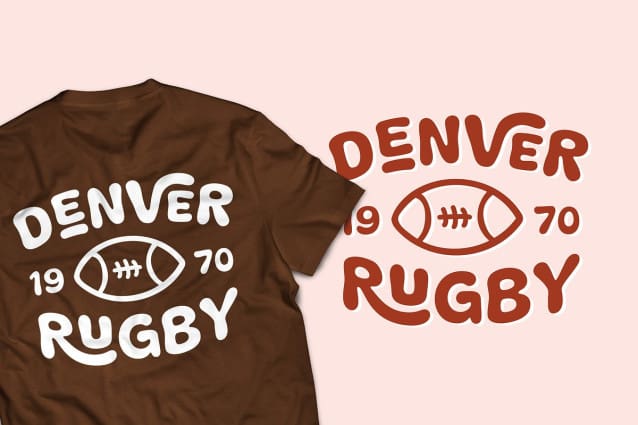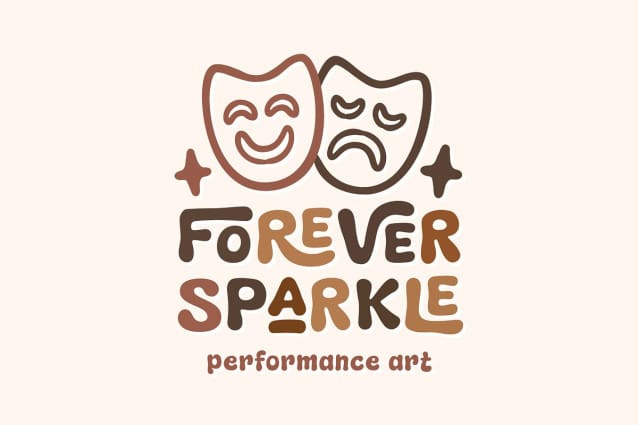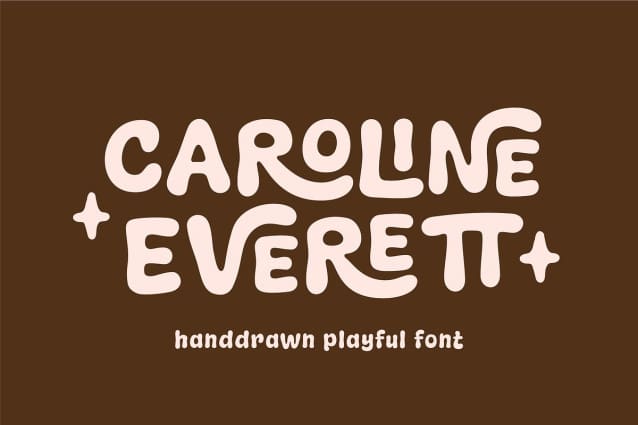
Caroline Everett Font
Caroline Everett Font is a fun, cheerful and playful font. This cute display font will add a unique touch to your designs. Caroline Everett font is perfect for a design that requires a playful accent. It is suitable for book covers, posters, packaging, merchandise, logotype, and much more.